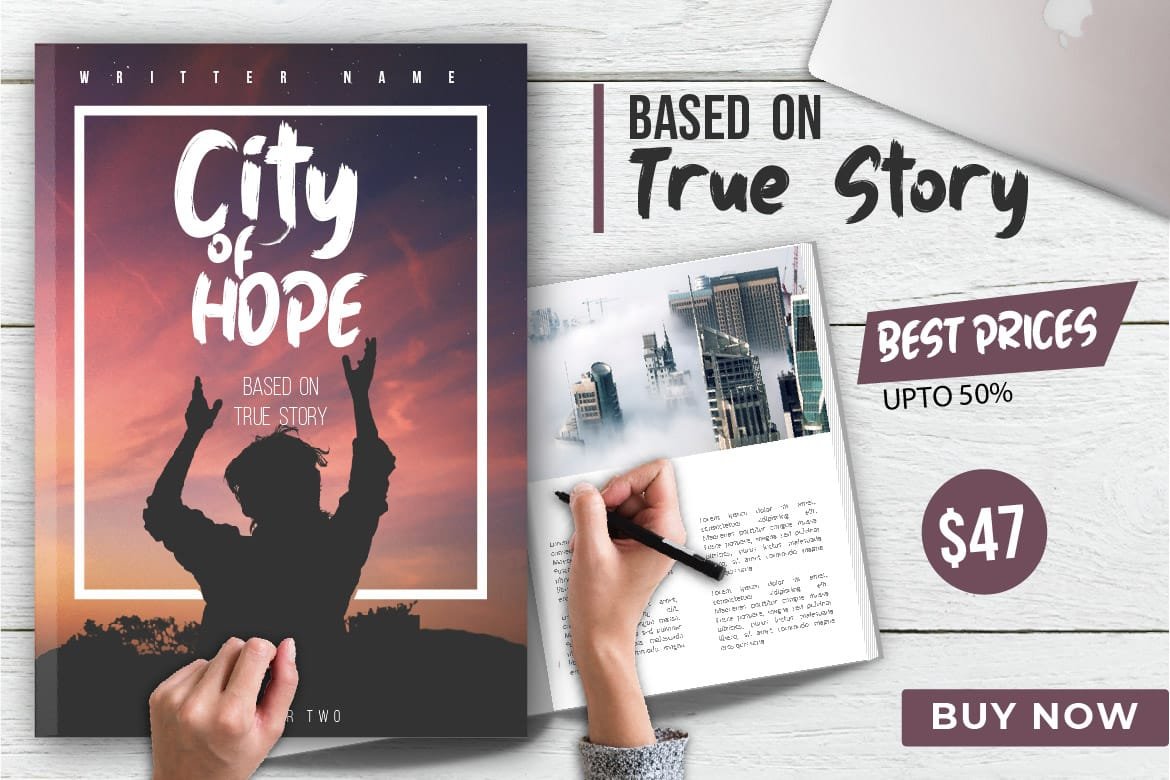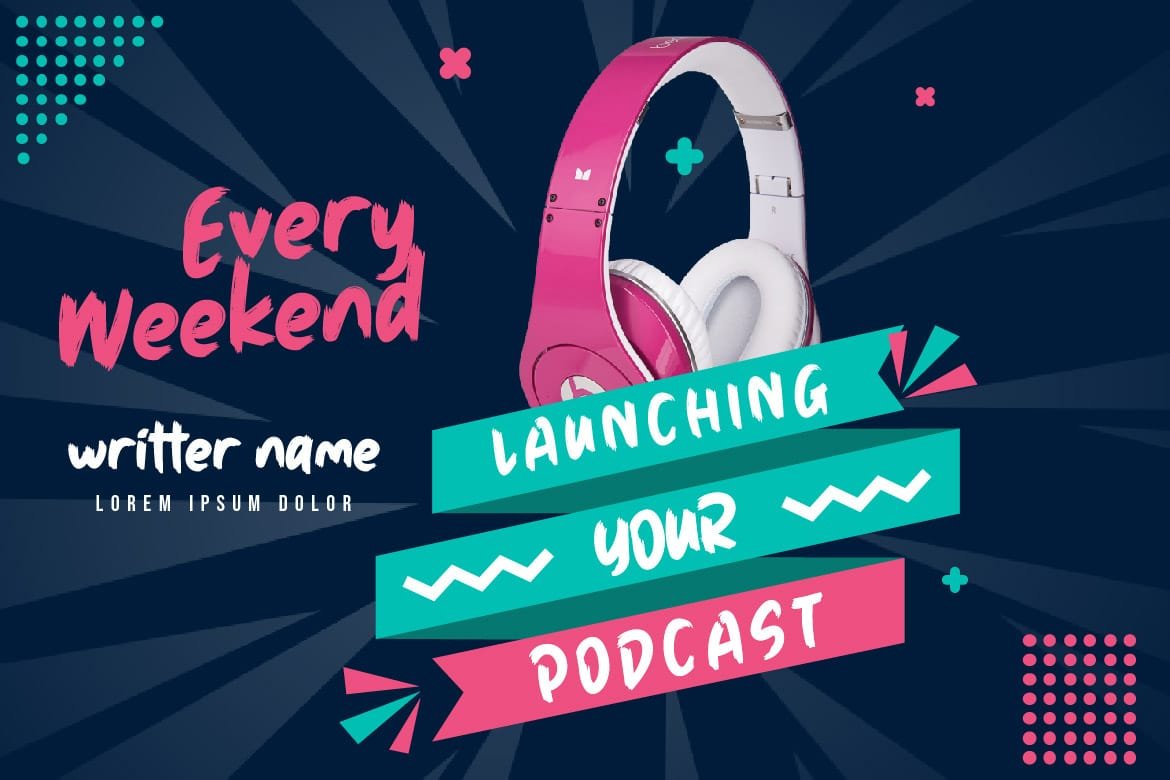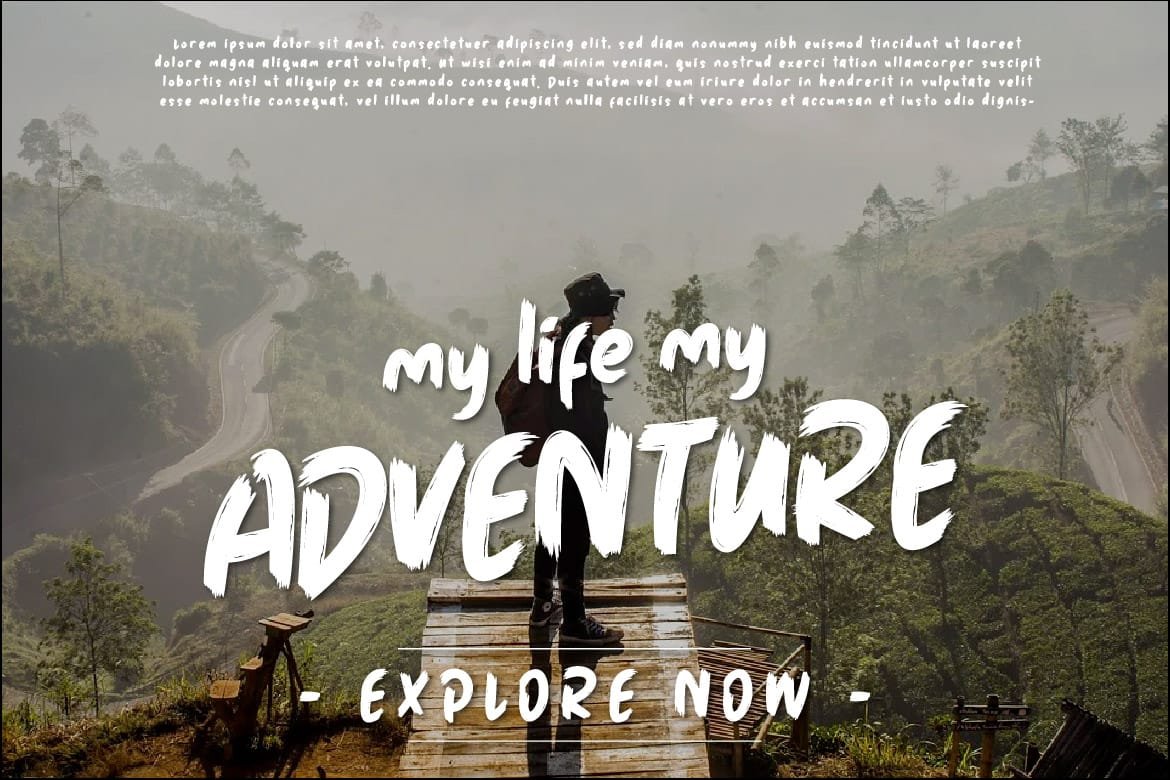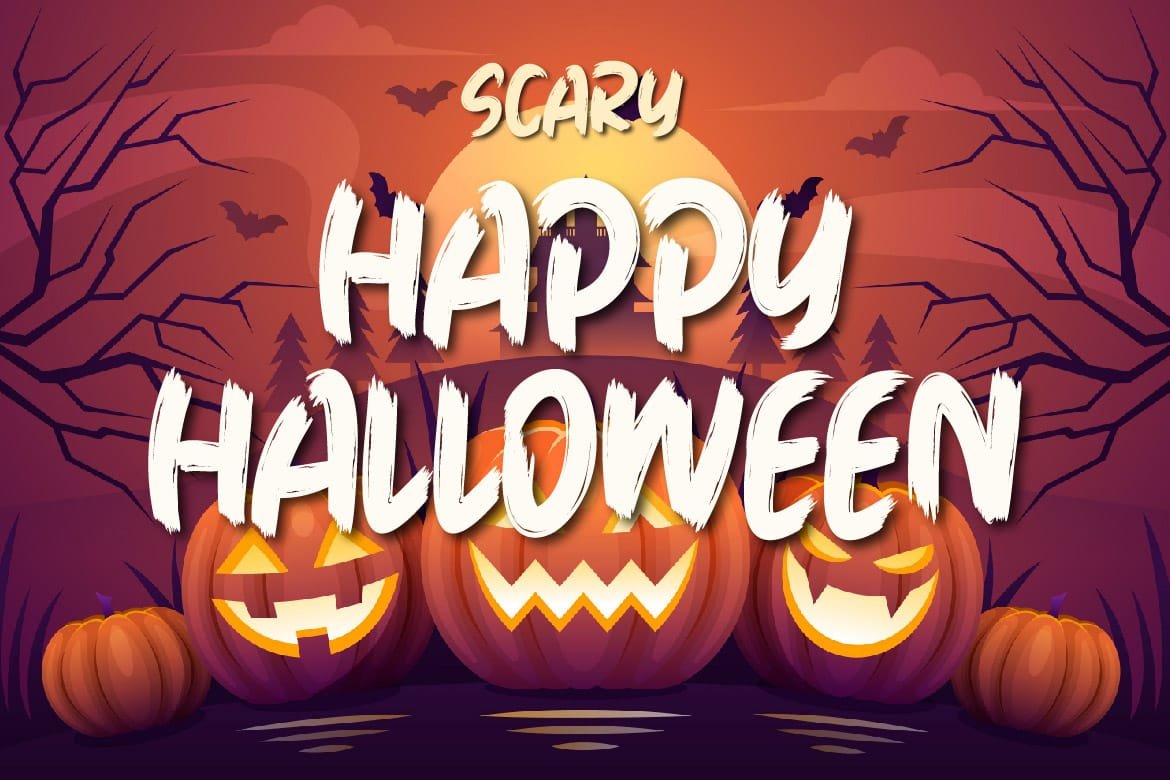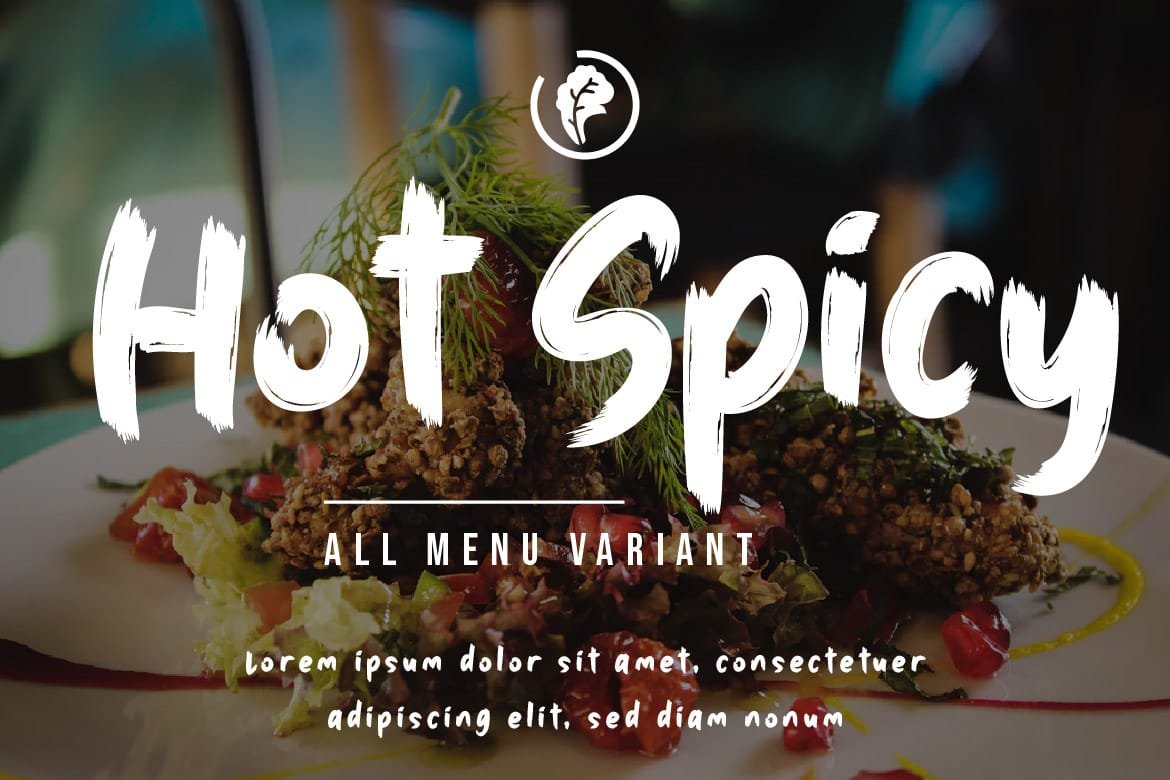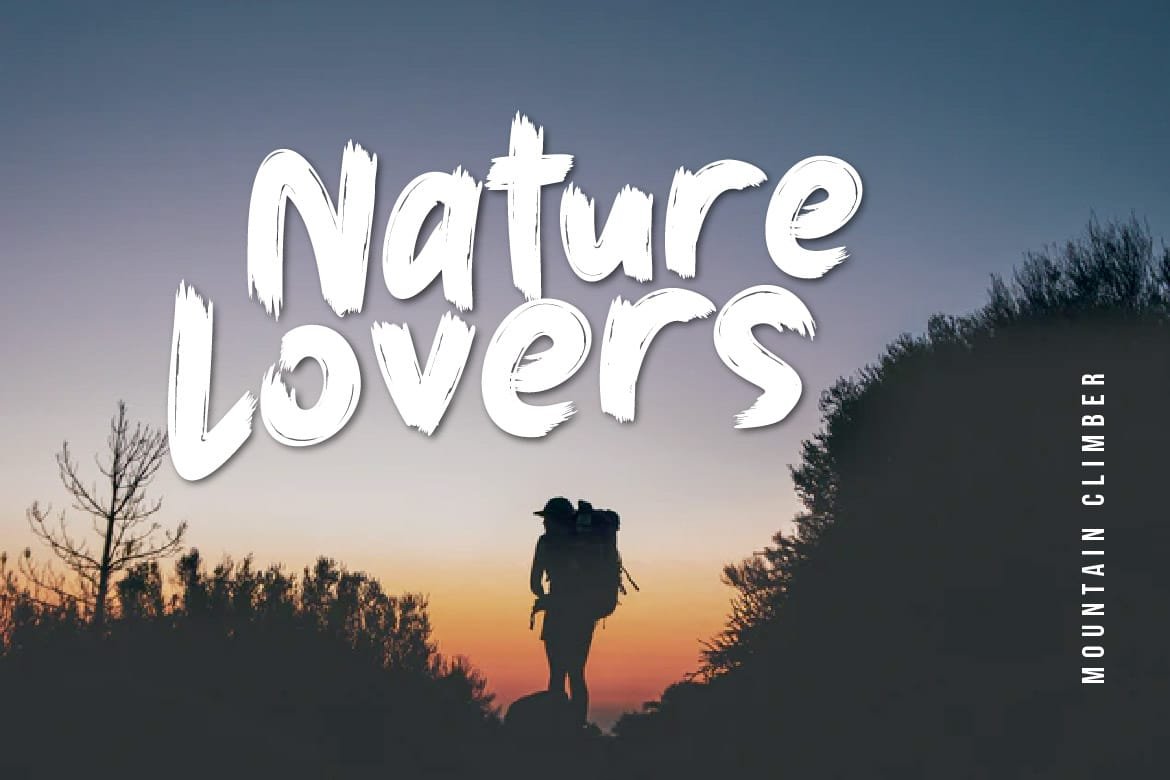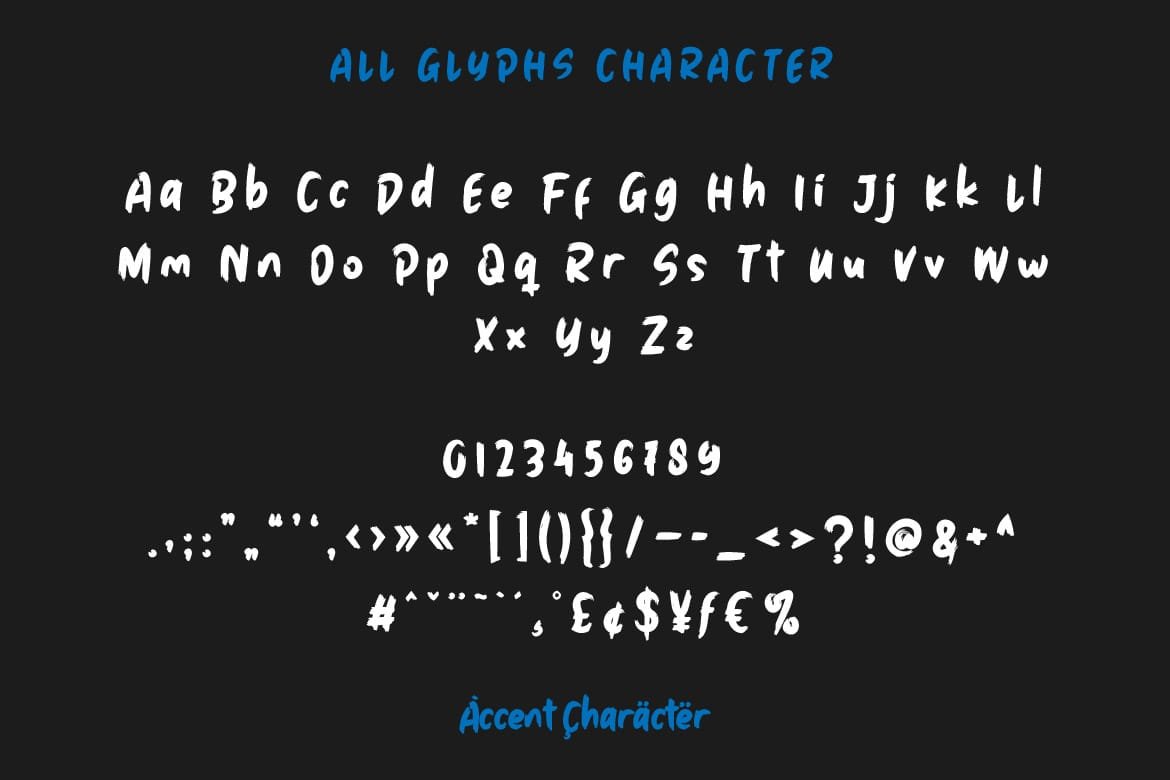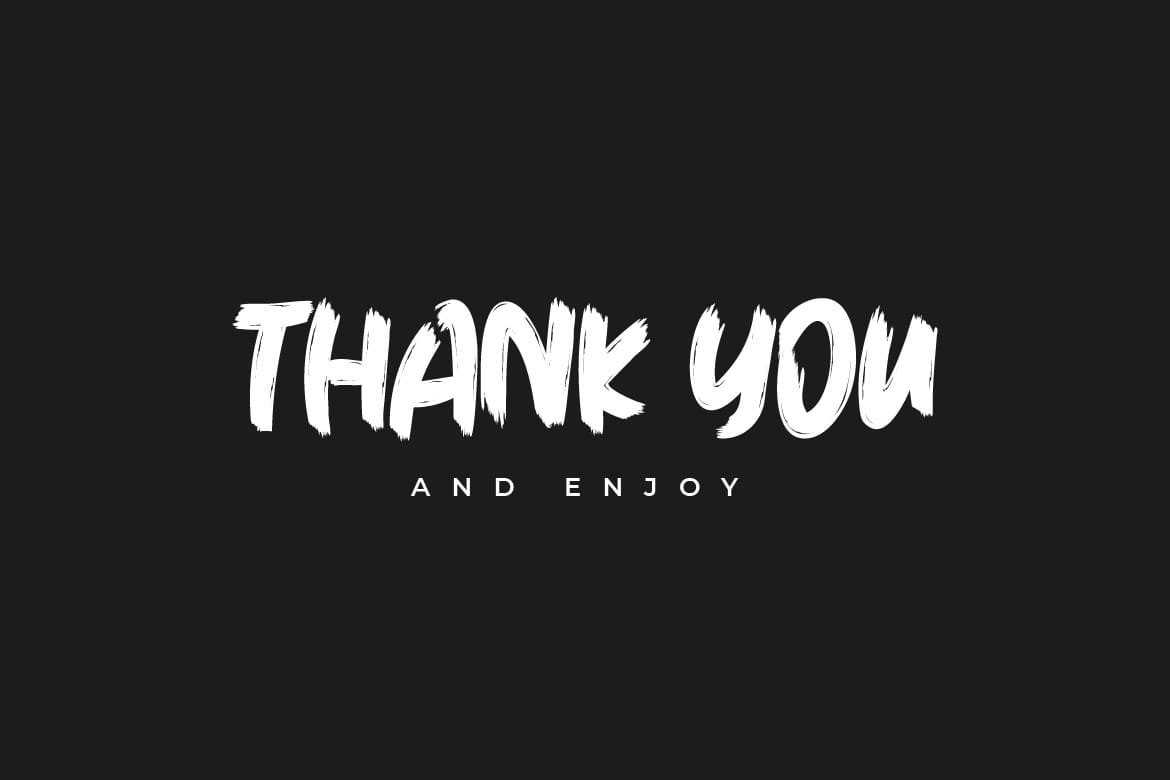
School Bag is a cool and casual handwritten font. With a relaxed style and friendly characters, this font is suitable for projects related to children, education, or a laid-back lifestyle. Use it for posters, brochures, or merchandise designs aiming for a fun and enthusiastic impression.